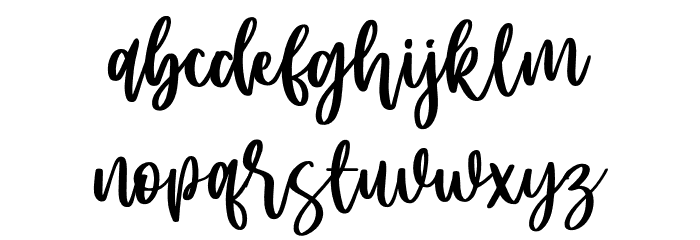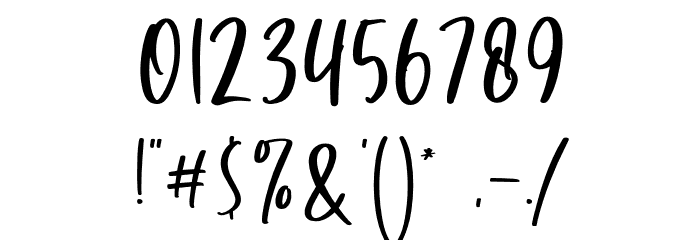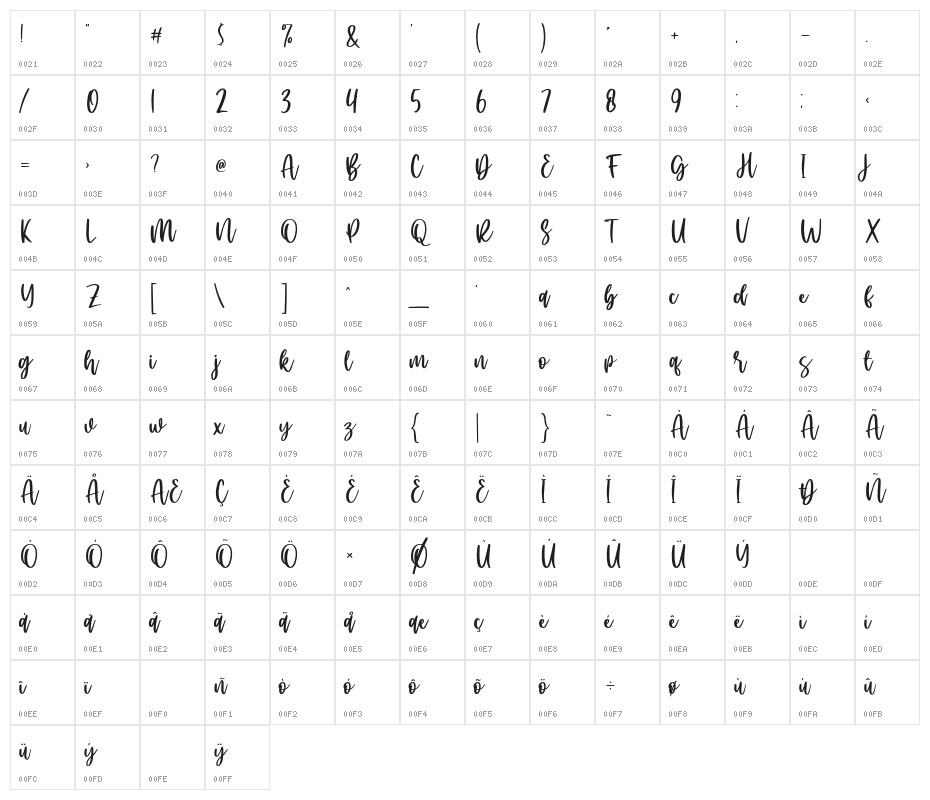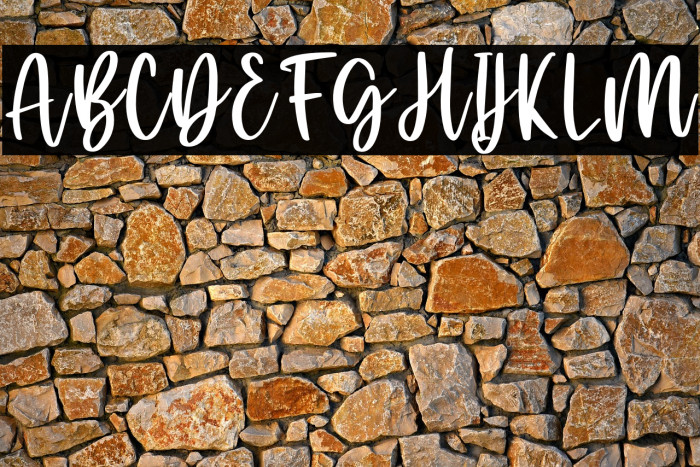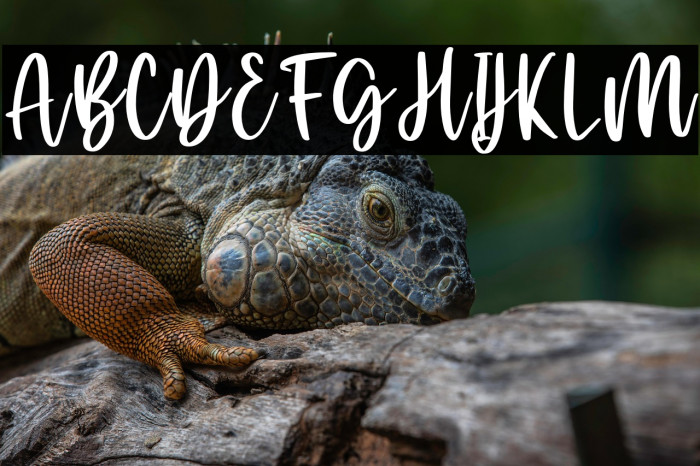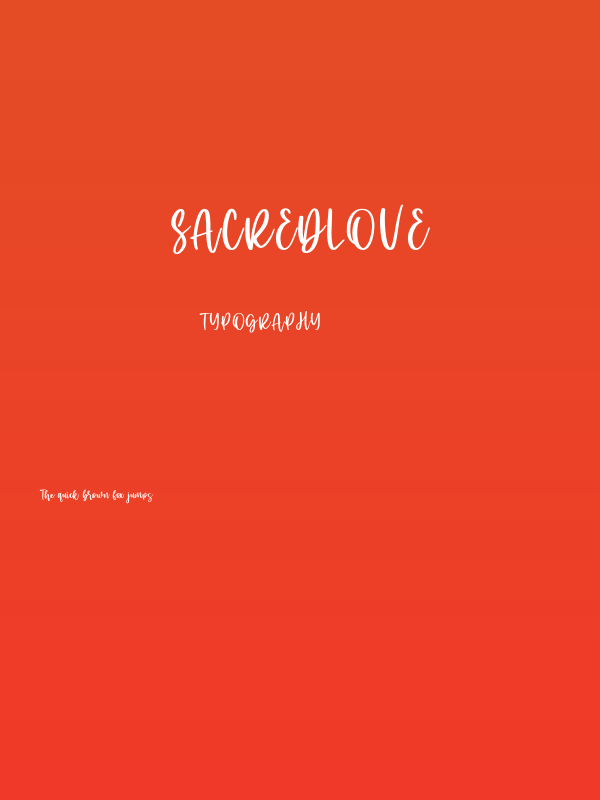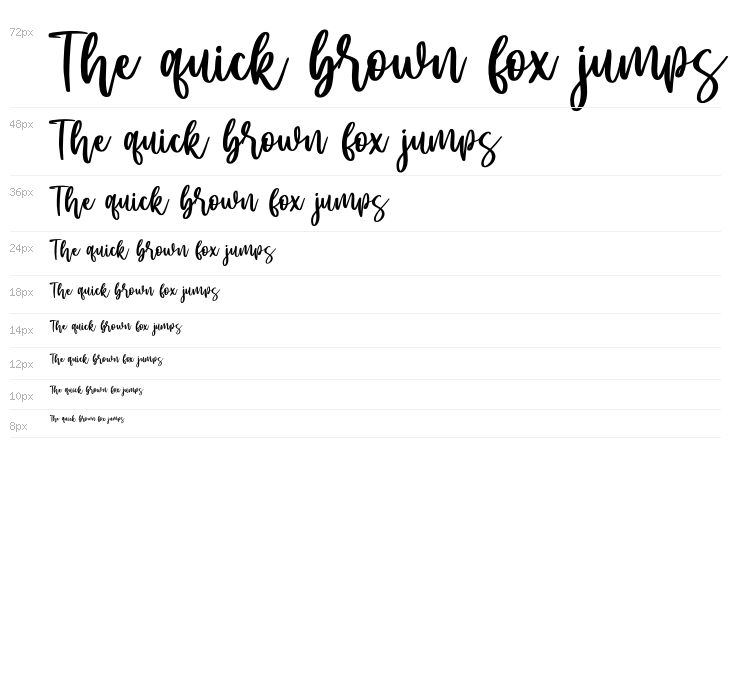
sacredLove Font
This font features a lively and flowing script style, characterized by its bold and expressive strokes. The letters are connected in a cursive manner, giving it a handwritten feel that is both elegant and casual. The uppercase letters are tall and slightly slanted, while the lowercase letters maintain a consistent flow with varied heights, adding to the dynamic appearance. The numerals are distinct and maintain the same playful style, ensuring readability. Special characters are integrated seamlessly, maintaining the overall aesthetic. This font is perfect for projects that require a personal touch, such as invitations, greeting cards, or branding materials.
A bold, expressive script font with a lively, handwritten style.
- Font: sacredLove
- Proposed Projects: Ideal for wedding invitations, personal branding, greeting cards, and creative projects needing a personal touch.
- Category: Script
- Use Case: Logos, Headlines, Invitations